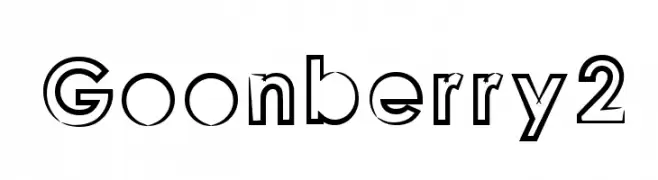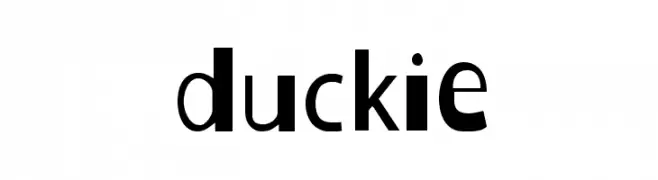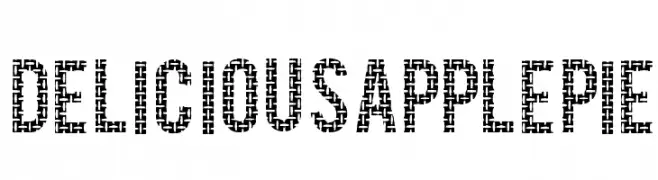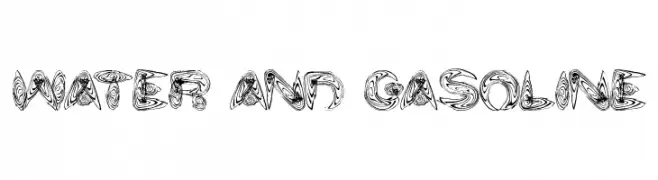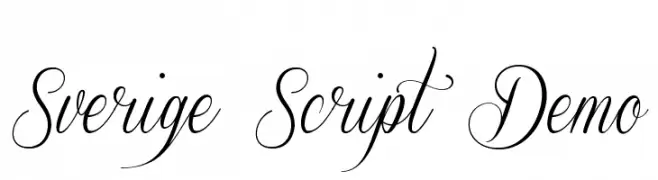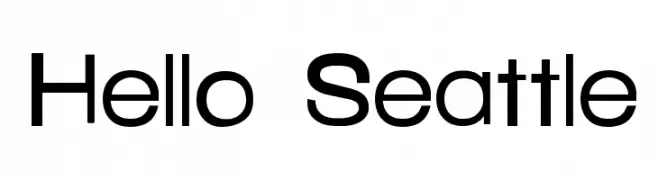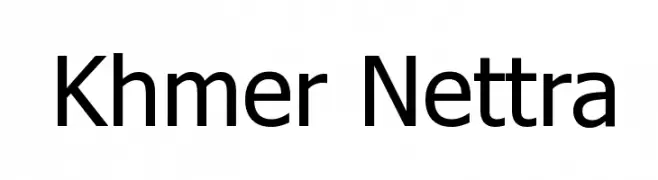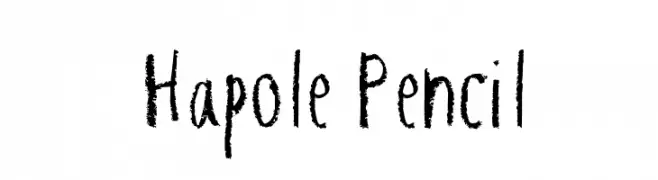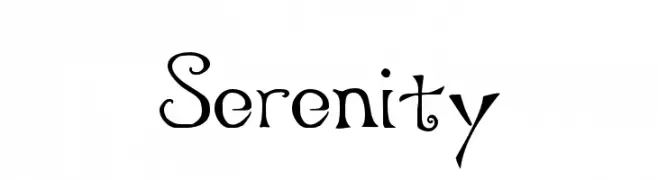
A bold, textured font with a distressed, stormy appearance.
A bold, geometric font with a futuristic and aerodynamic style.
A bold, cracked texture font with a rugged, edgy appearance.
A playful, bold font with rounded edges and a whimsical style.
A decorative font with arrow-themed embellishments, offering a tribal aesthetic.
A geometric, industrial font with sharp, precise lines and uniform stroke width.
A decorative font with a woven, geometric pattern for a striking visual impact.
A bold, rounded typeface with a playful and whimsical style.
A playful, bold italic font with a modern and dynamic style.
A bold, playful font with geometric shapes and smooth curves.
A bold, italic font with a playful and dynamic style.
A decorative and abstract font with swirling, fluid patterns.
An elegant script font with intricate swashes and decorative flourishes.
An elegant and flowing script font with high contrast and classic style.
A playful and whimsical font with bold, curvy elements and a decorative style.
A bold, geometric font with angular edges and a modern feel.
A modern, geometric sans-serif font with a clean and balanced appearance.